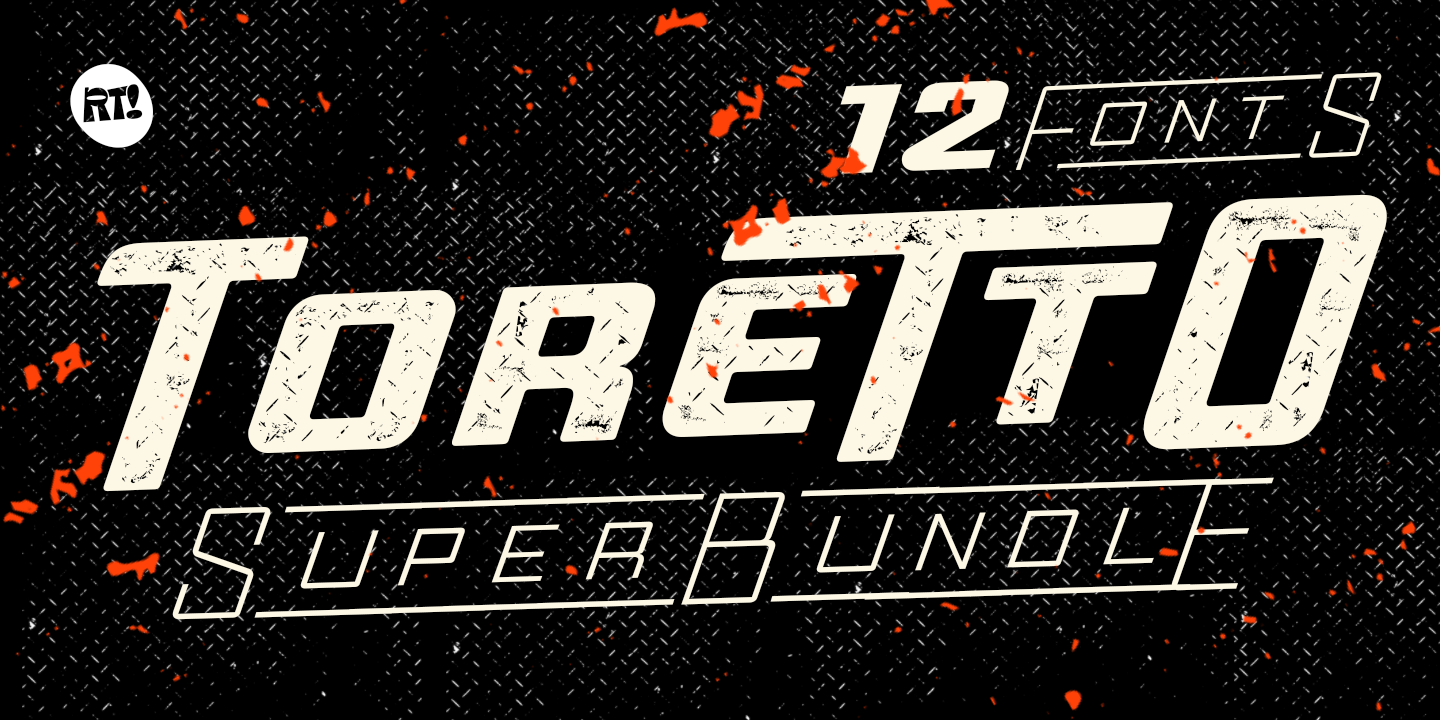
ToreTtO Font is perfect for Italian automotive branding, luxury sports car logos, high-performance racing graphics, exclusive motorsports designs, premium automotive magazines, exotic car dealership signage, racing team identity, and prestigious designs that require Italian automotive excellence and racing sophistication.
This font is exciting because it captures the passionate spirit of Italian automotive craftsmanship through its dynamic letterforms that embody the speed, precision, and elegance of legendary Italian supercars. The sophisticated character design reflects the perfect fusion of engineering excellence and artistic beauty, making it ideal for brands operating in the luxury automotive and motorsports industries.
ToreTtO Font belongs to the automotive display font family, featuring Italian styling and racing elements that enhance its authenticity for luxury vehicle and motorsports-focused design applications.
Whether you're creating luxury automotive branding or high-performance racing graphics, ToreTtO Font Free Download delivers maximum Italian sophistication and racing credibility. This typeface represents the perfect balance between automotive heritage and contemporary performance standards, making it essential for designers working on projects that celebrate Italian automotive excellence and racing culture. The font's dynamic presence works magnificently in automotive communications, racing materials, and luxury vehicle branding, providing optimal readability while maintaining its Italian character that transforms any design with automotive passion and creates unforgettable racing experiences across all media platforms and luxury automotive communications.